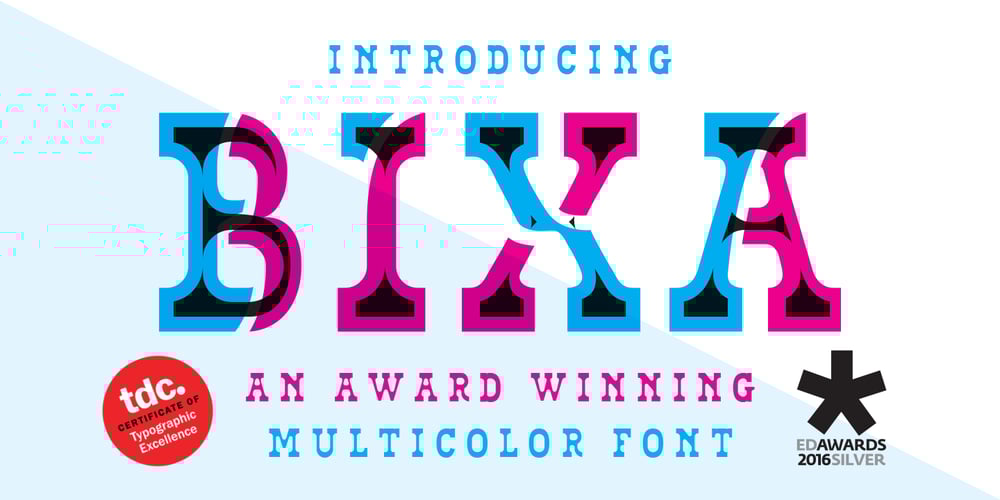
Bixa
Bixa font
Bixa Font Family was designed by Mark van Wageningen and published by Novo Typo. Bixa contains 9 styles and family package options. Bixa is a chromatic typeface designed for display use. Bixa comes in 13 different layers containing 11 weights for beautiful color combinations. Bixa was originally designed for the Typewood project in 2015. Read more about this project here . In 2016 we launched the chromatic web version of Bixa. More information about Bixa Color here. Bixa was awarded by the Type Directors Club New York and the European Design Awards in 2016. Bixa is designed by Novo Typo in 2015. Youtube